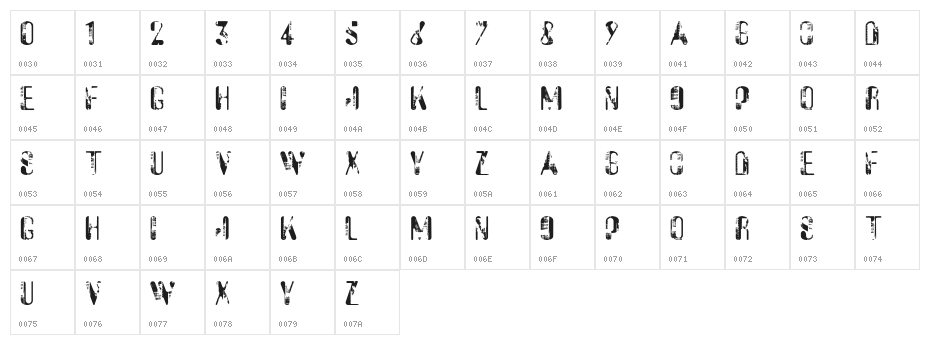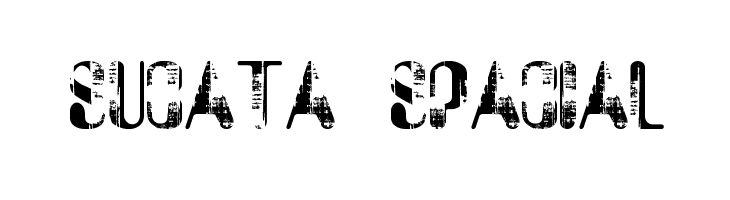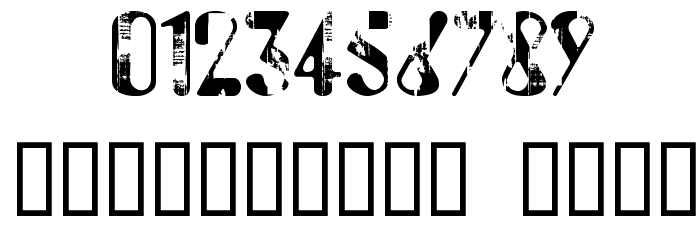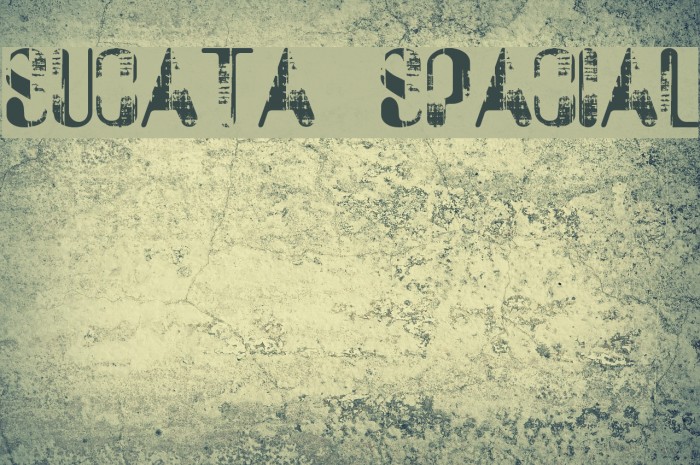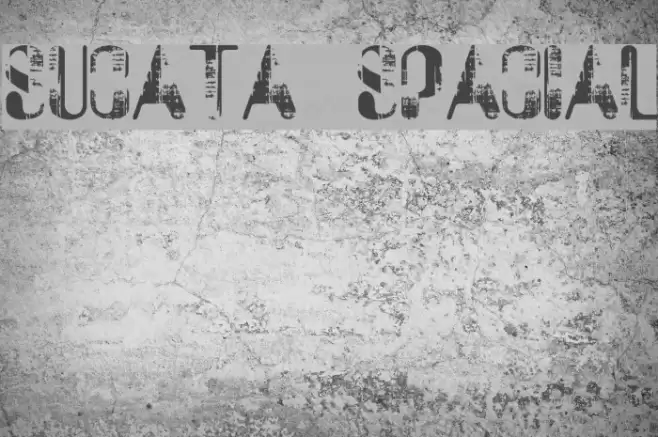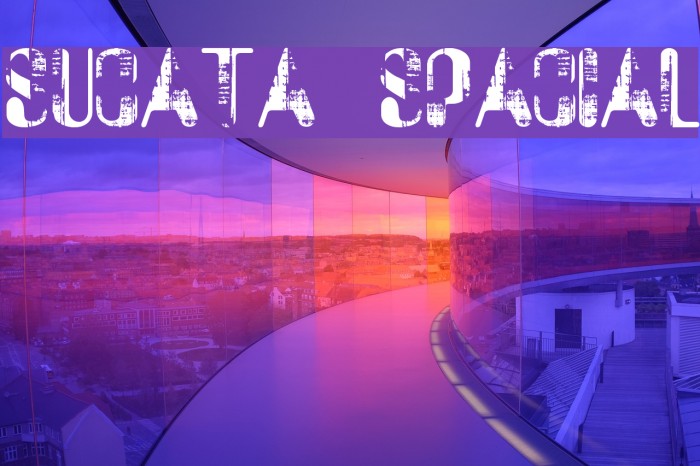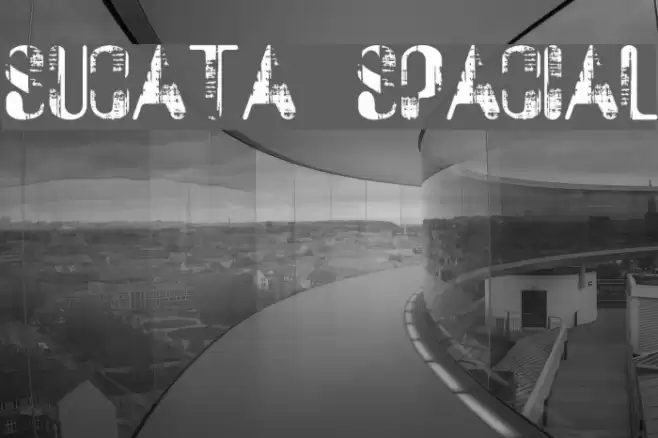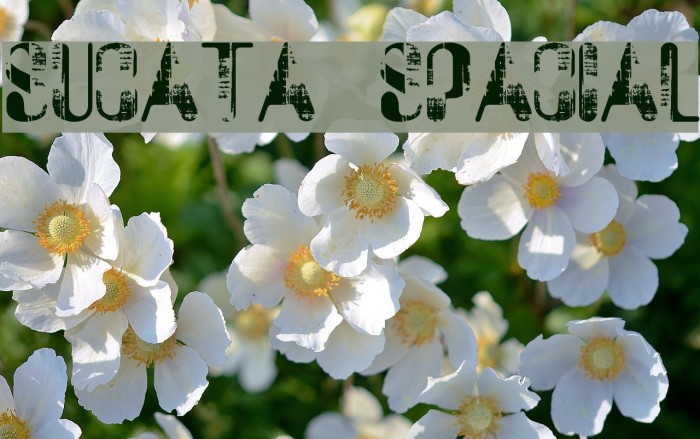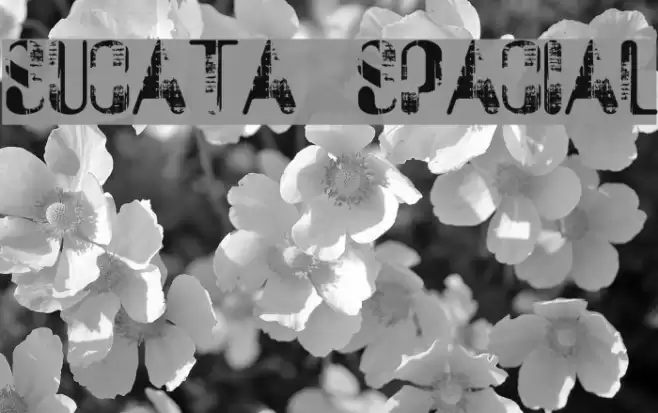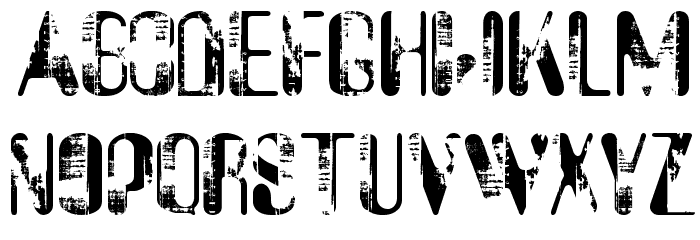
Sucata Spacial Font
✎ Distorted Eroded
| Style général | Grunge, Industrial |
| Cas d'utilisation | Headlines, Posters, Branding |
| Projets proposés | Ideal for projects requiring a gritty, urban feel such as album covers, posters, or branding for edgy products. |